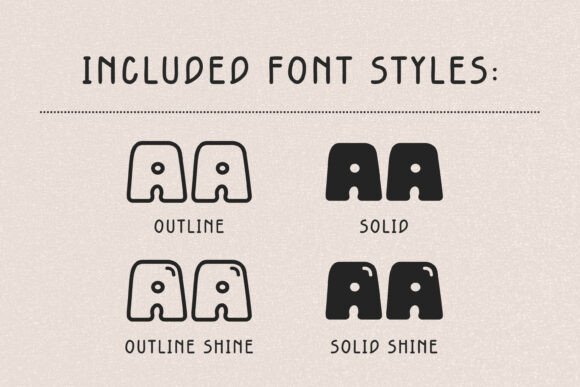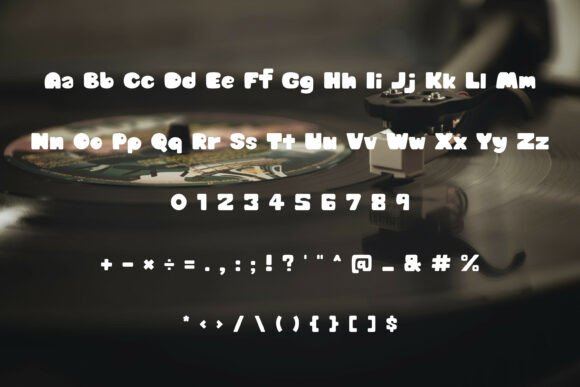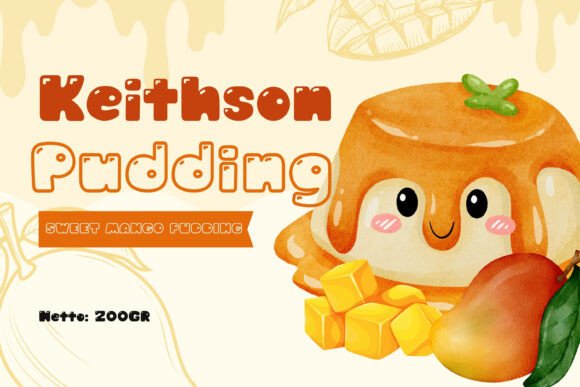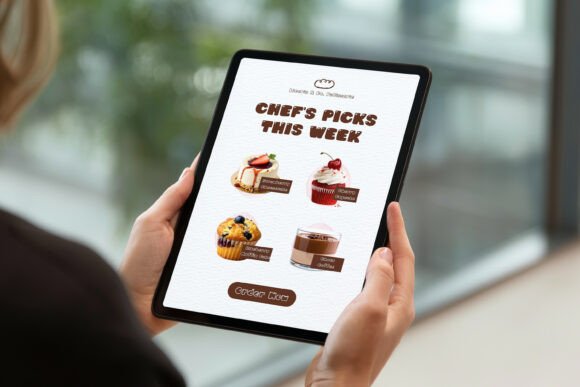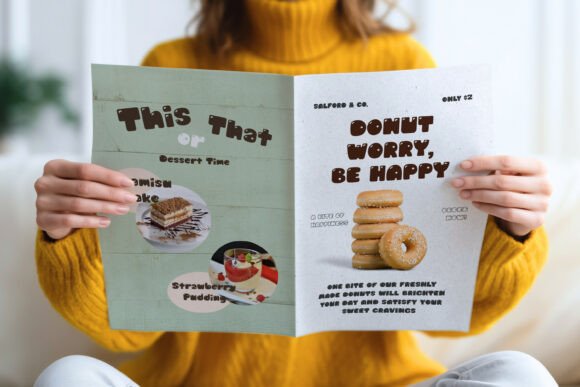
Introduction to Pudding Soda Font
✨ Bring a scoop of sweetness and a pop of fun to your creative projects with “Pudding Soda”—the ultimate Display Bubble Font.
Inspired by cozy cafes, fluffy desserts, and retro Japanese soda shops, this font features thick, chunky letterforms packed with playful personality Each character is designed with cute “glossy reflection” details, making your text look instantly 3D, juicy, and irresistible.
Key Features of Pudding Soda Font
Why Choose Pudding Soda Font?